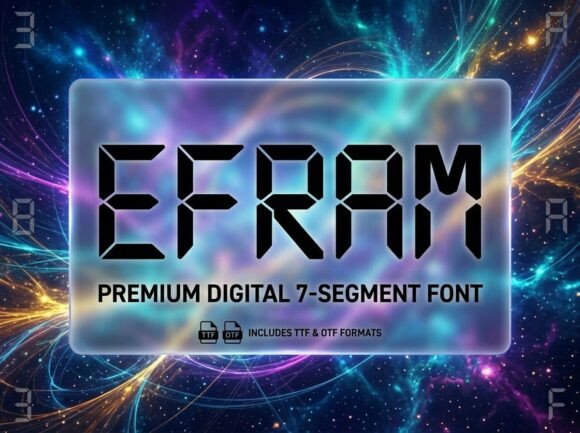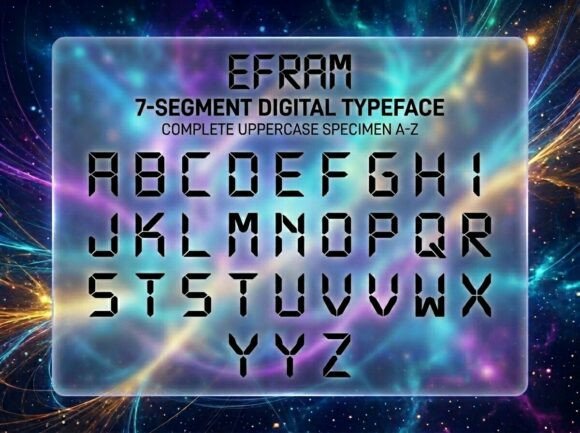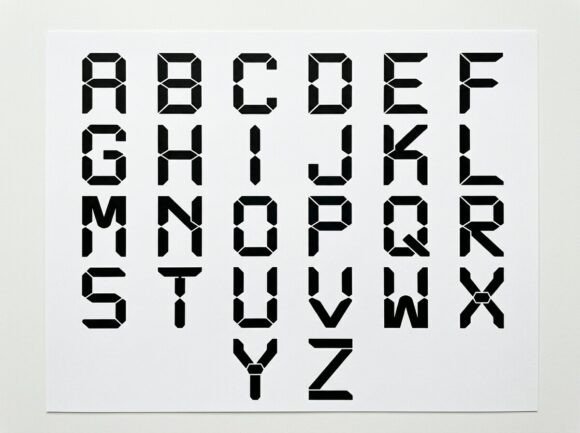
Efram Font: A Stunning Decorative Display Font for Creative Minds
Are you tired of using the same old fonts for your designs? Look no further than the Efram Font, a unique and artistic display font that’s sure to turn heads. This font is designed to be the center of attention, featuring bold and eye-catching elements that will elevate your creative projects to the next level.
A Font that Breaks Away from the Ordinary
The Efram Font is perfect for creators who want to add a touch of personality to their designs. With its strong visual personality and unique artistic elements, this font is sure to make your work stand out from the crowd. Whether you’re designing bold headlines, artistic logos, or creative packaging, the Efram Font is the perfect choice.
One of the best things about the Efram Font is its versatility. This font is not just limited to one or two uses – it’s perfect for a wide range of creative projects. Use it to create:
- Bold headlines that grab attention
- Artistic logos that showcase your brand’s personality
- Creative packaging that stands out on store shelves
And no matter where you use it, the Efram Font is sure to maintain a professional and polished finish.
Before you make your purchase, it’s essential to note that the Efram Font is an ALL-CAPS (Uppercase Only) display typeface. This means it does not include lowercase letters. It’s specifically designed for high-impact headlines, logos, and decorative initials where every letter is a work of art.
So, if you’re looking for a font that’s perfect for body text or long-form writing, the Efram Font may not be the best choice. However, if you want to create eye-catching headlines, logos, or decorative elements, this font is sure to deliver.
Why Choose the Efram Font?
So, why should you choose the Efram Font over other display fonts on the market? Here are just a few reasons:
- Unique and artistic design – The Efram Font features a one-of-a-kind design that’s sure to turn heads.
- High-impact visuals – This font is designed to make a statement, with bold and eye-catching elements that will elevate your designs.
- Versatility – Use the Efram Font for a wide range of creative projects, from headlines and logos to packaging and more.
- Professional and polished finish – This font is designed to look great in any design, from print to digital.